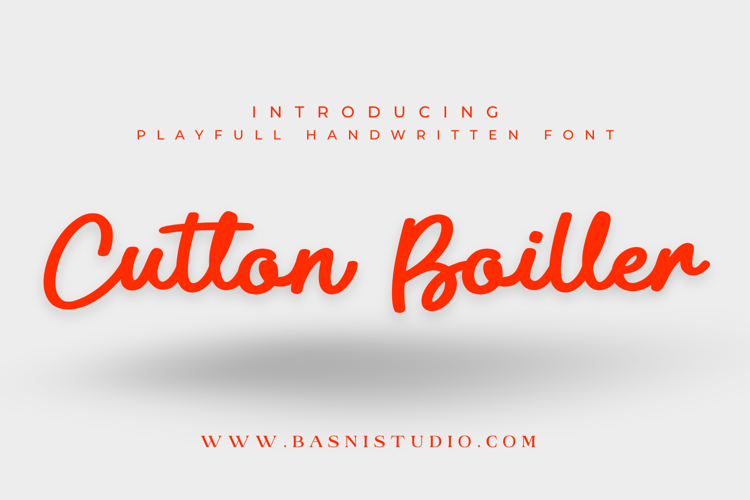
Cutton Boiller Font
About Cutton Boiller Font
INTRODUCING Cutton Boiller Handwritten Font
Cutton Boiller Handwritten Font, a designed to add a dash of whimsy and a whole lot of charm to everything you create